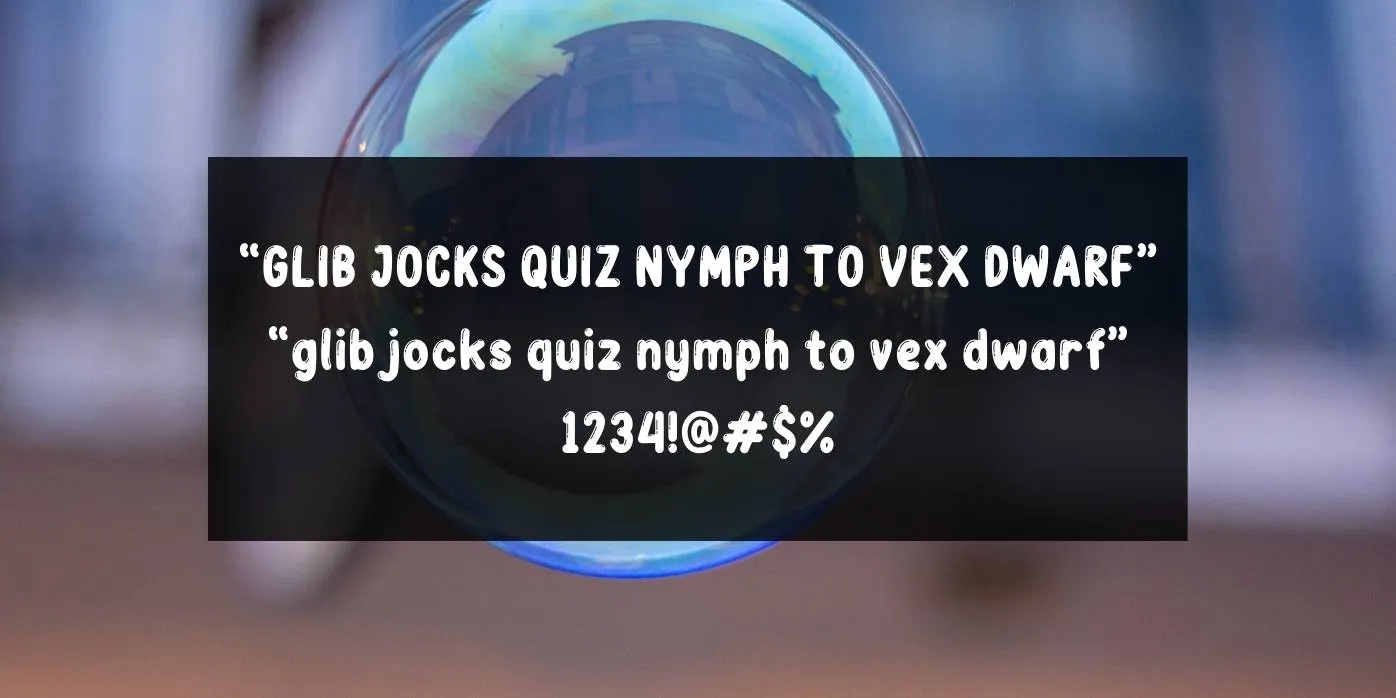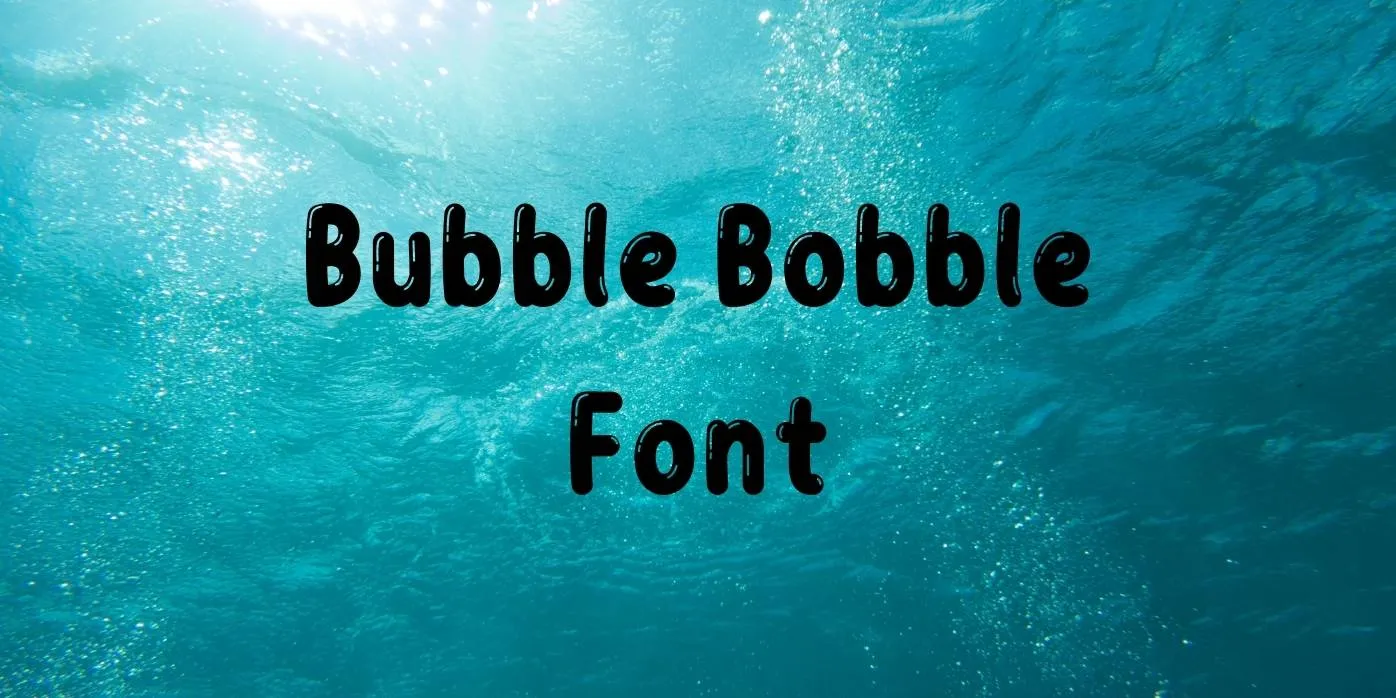
Bubble Bobble Font
In this post, we are going to introduce Bubble Bobble Font which is fancy font. This typeface was designed by Almarkhatype. You can use this font for both personal and commercial purposes. The copy and paste function of this awesome typeface is used for text designs.
This tremendous font is a fancy, comic sans-serif typeface. The name ‘Bubble Bobble’ was inspired by the popular arcade game of the same name. This typeface has a unique bubbly design which makes it perfect for any fun and playful projects. You can use the bubble gum font which has the same style and characters as this one.
It is well suitable for CSS and HTML. Its generator tool is suitable for colorful custom designs. This font is available in two styles – regular and italic. Each style contains 498 glyphs and supports multiple languages.
Bubble Bobble Font also includes a set of dingbats and icons.